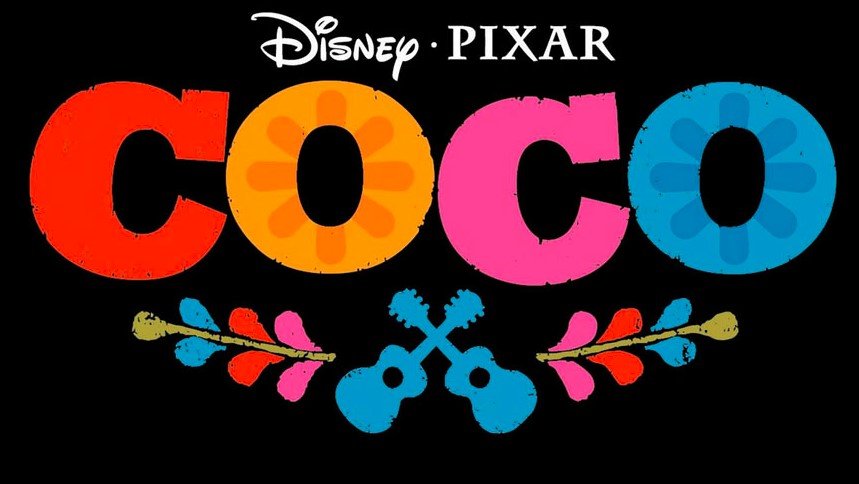
There are lots of users of this font available and lots of popular and vast range of designs are created with the help of this font. The font has an awesome
introducing the beautiful and great quality slab serif typeface that is Coco Font which was shared by Franco Fernandez and shared this great typeface with lots of smart qualities of designing the awesome and unique font.
There are lots of users of this font available and lots of popular and vast range of designs are created with the help of this font. The font has an awesome character set and comes with some special characters as well.